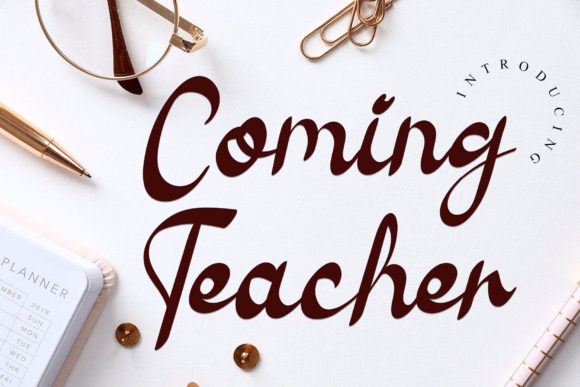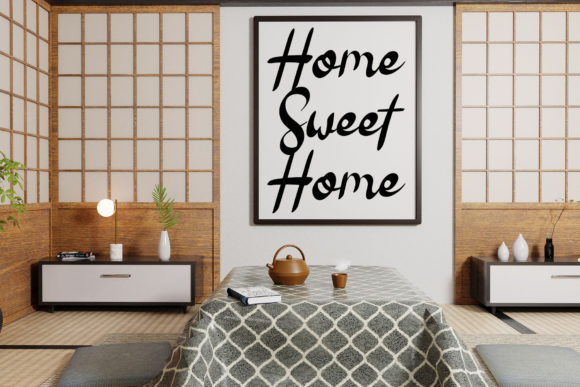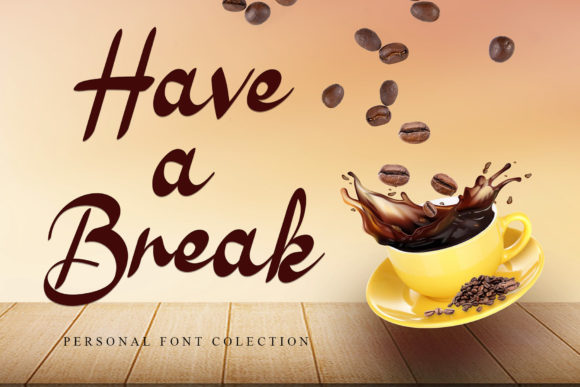
About Coming Teacher Font
Coming Teacher is a lovely and timeless handwritten font. It is the best choice for creating eye catching logos, branding and quotes. Every letter has a unique and beautiful touch, which will make your design come alive!